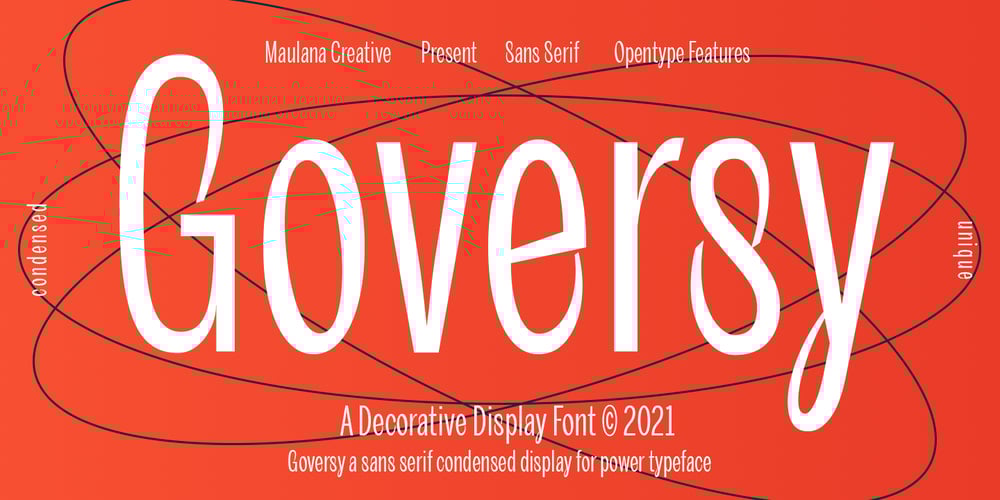
Goversy Font Family was designed by Gilang Maulana and published by Maulana Creative. Goversy contains 1 styles and family package options. Goversy is a Decorative Condensed Display font. With Regular stroke, fun character with a bit of ligatures. To give you an extra creative work. Goversy font support multilingual more than 100+ language. This font is good for logo design, Social media, Movie Titles, Books Titles, a short text even a long text letter and good for your secondary text font with handwriting and script font. Make a stunning work with Goversy font.Cheers,Maulana Creative